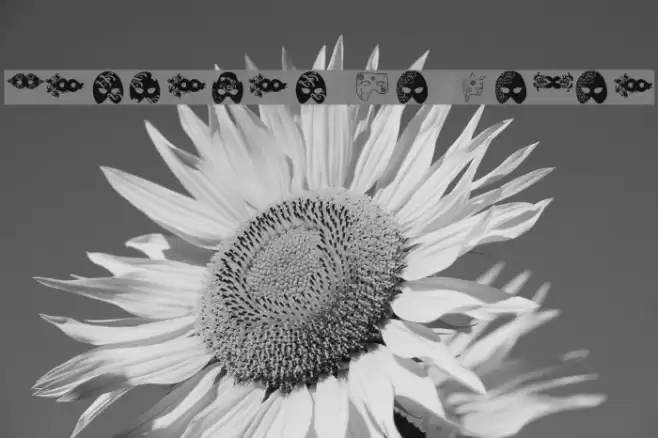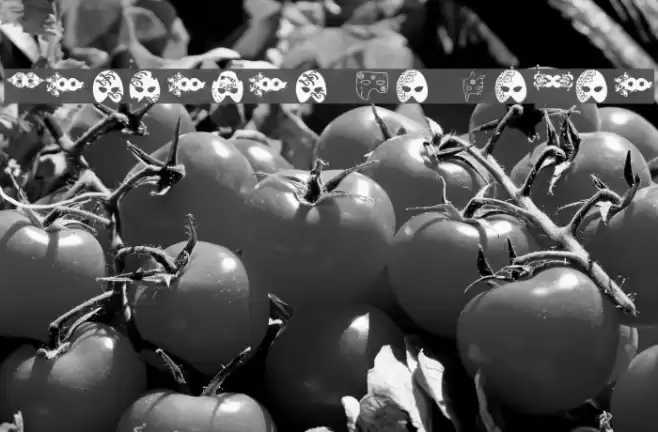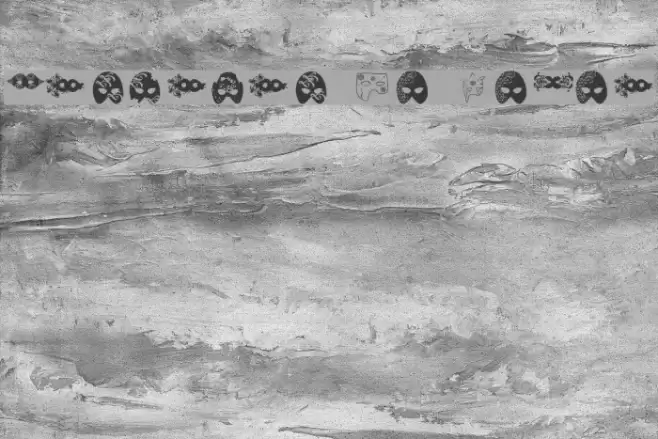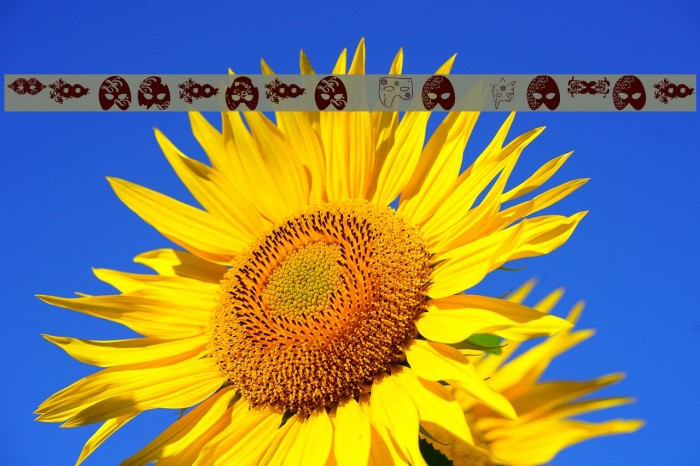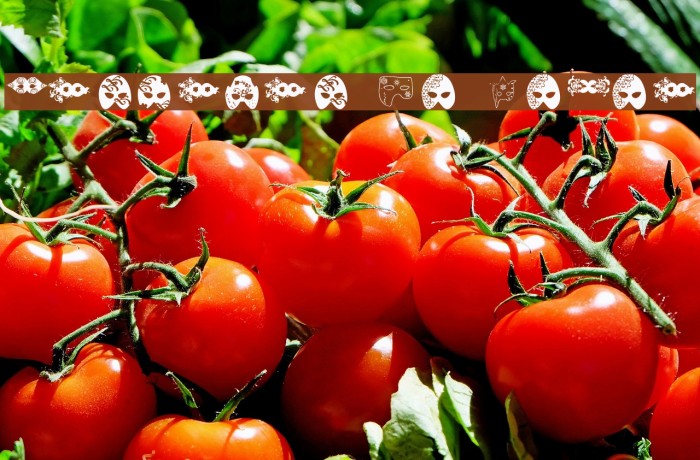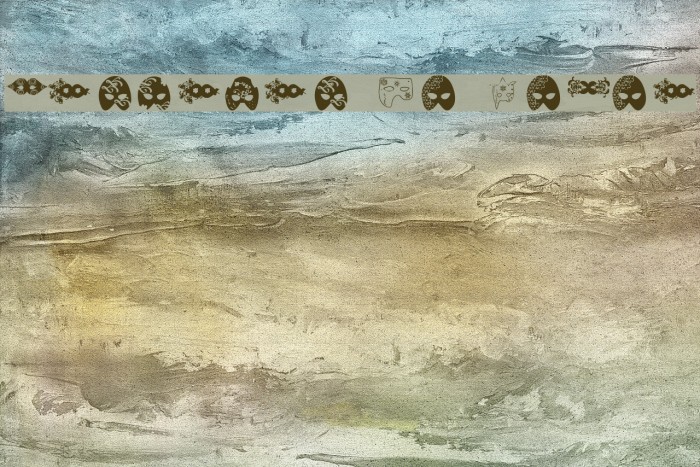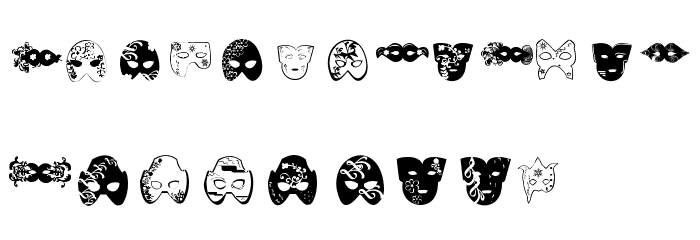
Mascaras de Veneza Font
Mascaras de Veneza Description
A highly decorative and illustrative font composed of ornate Venetian mask designs for each character, featuring intricate patterns and alternating solid and outline styles. Each glyph is unique, resembling a masquerade mask rather than a traditional letterform.
Ornate, mask-themed decorative font with unique glyphs from Dingbats fonts.
- Font: Mascaras de Veneza
- Proposed Projects: Event invitations, carnival posters, theatrical promotions, party flyers, themed branding.
- Overall Style: Decorative, Theatrical, Festive
- Use Case: Logos, Headlines, Posters, Themed graphics